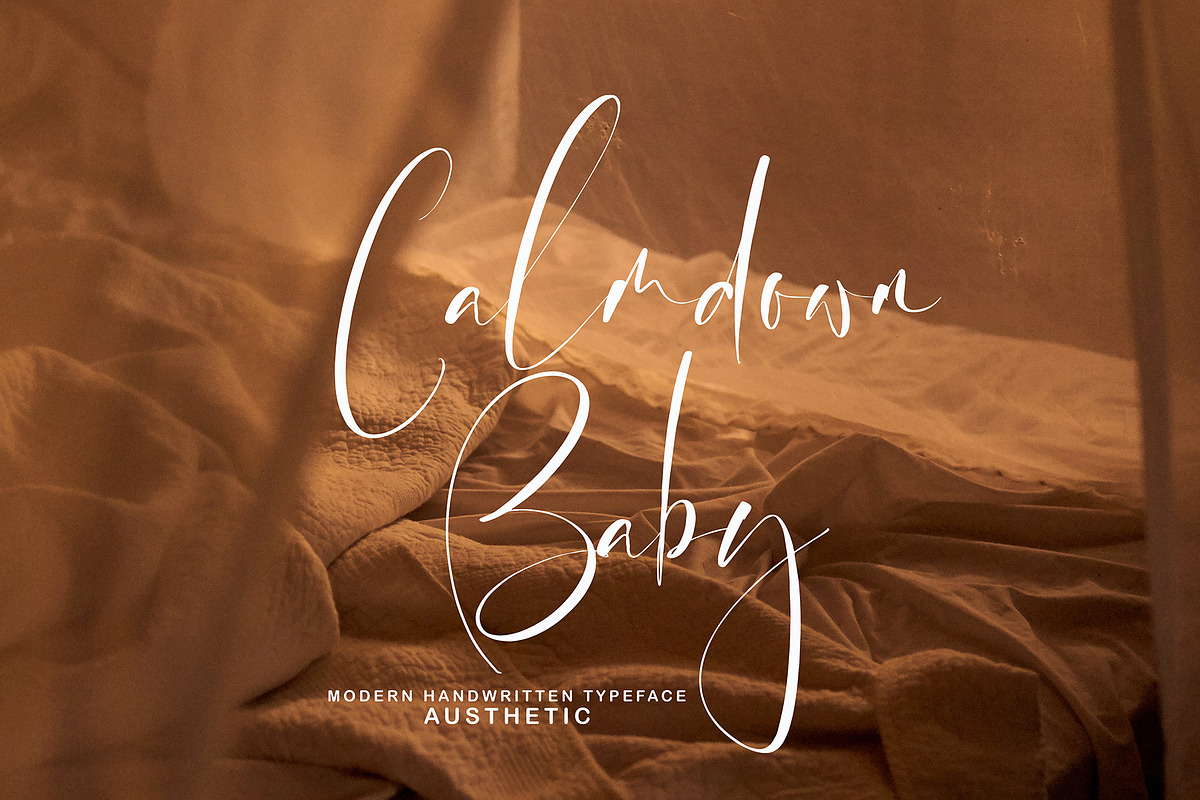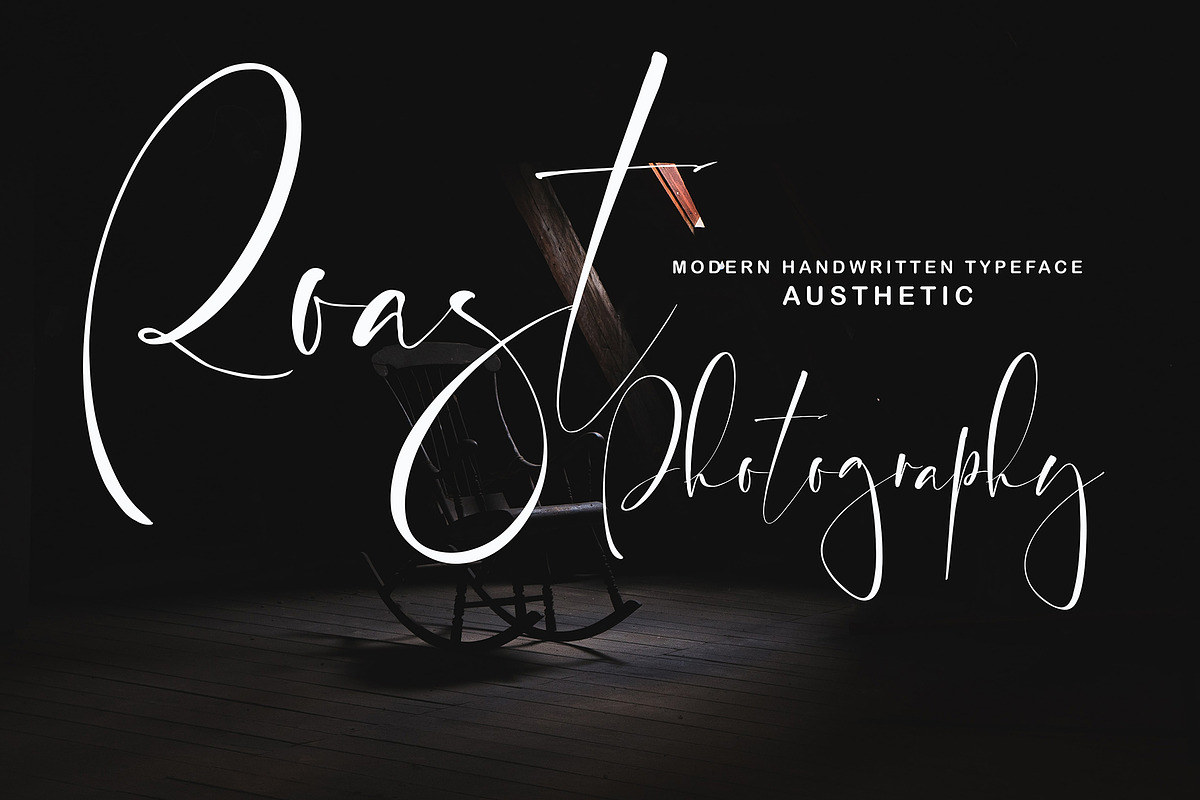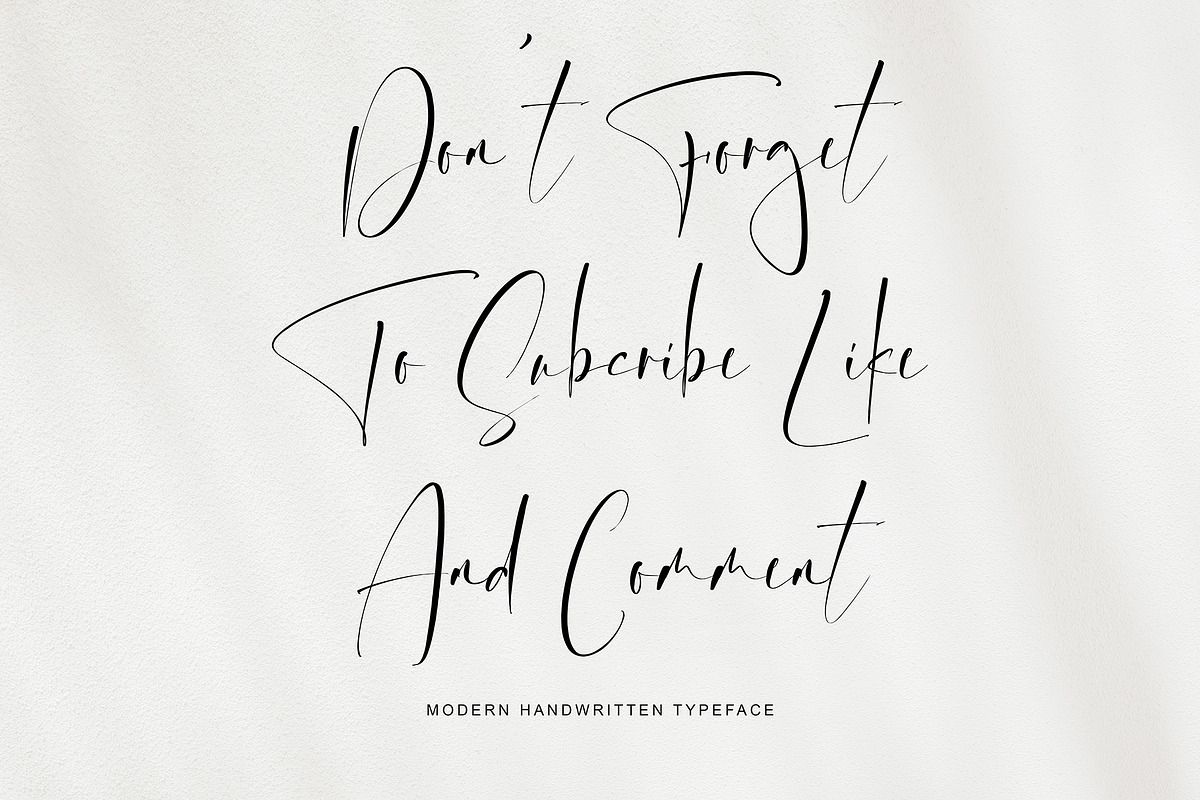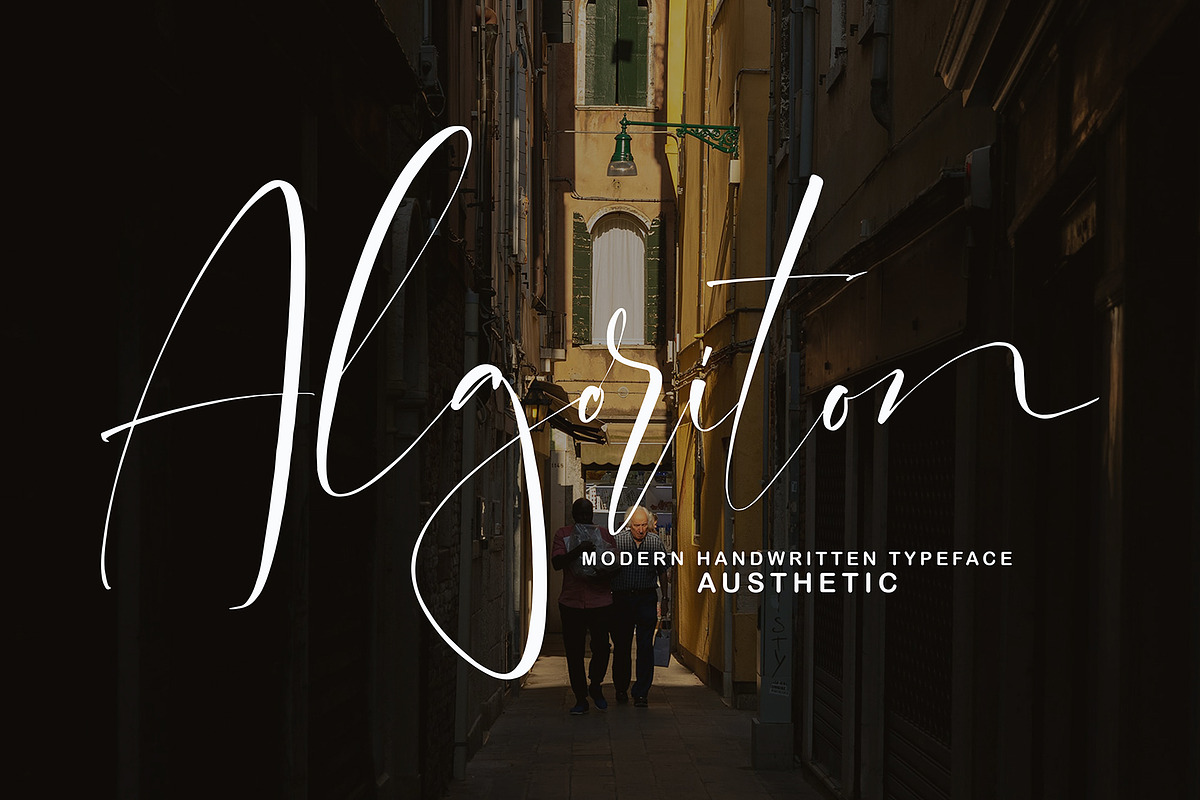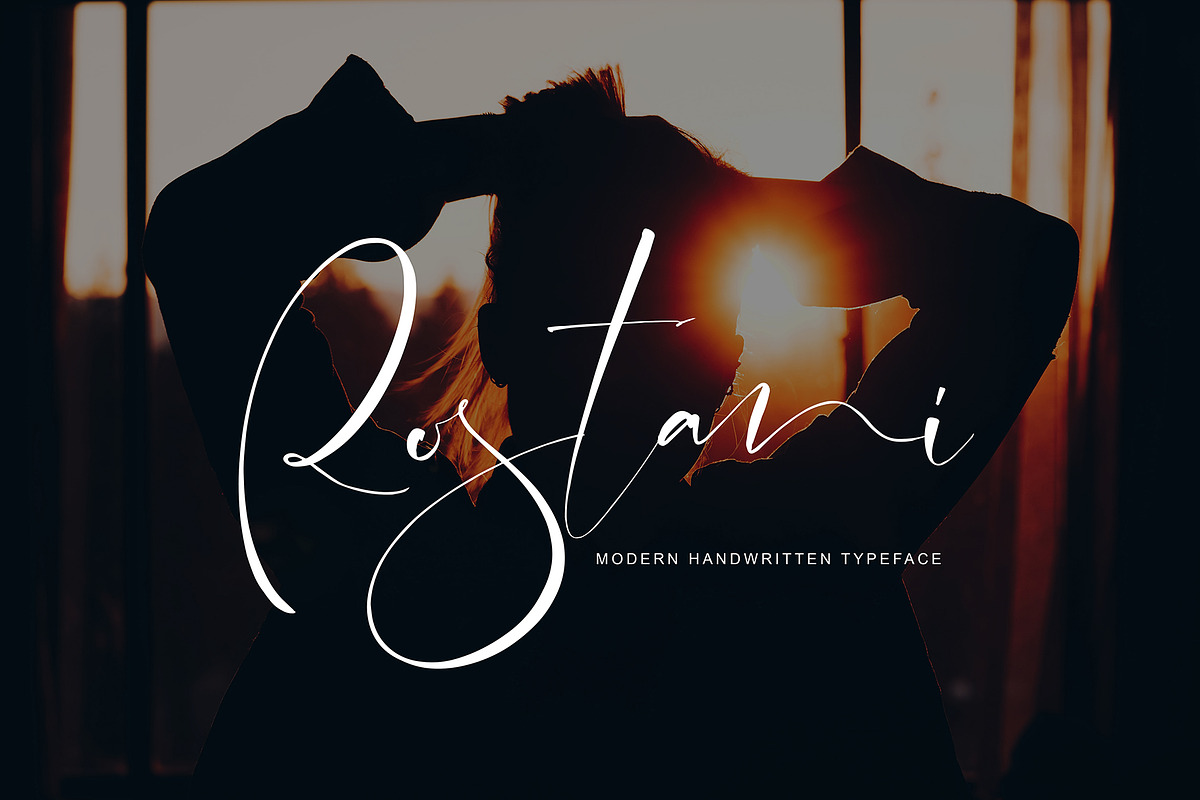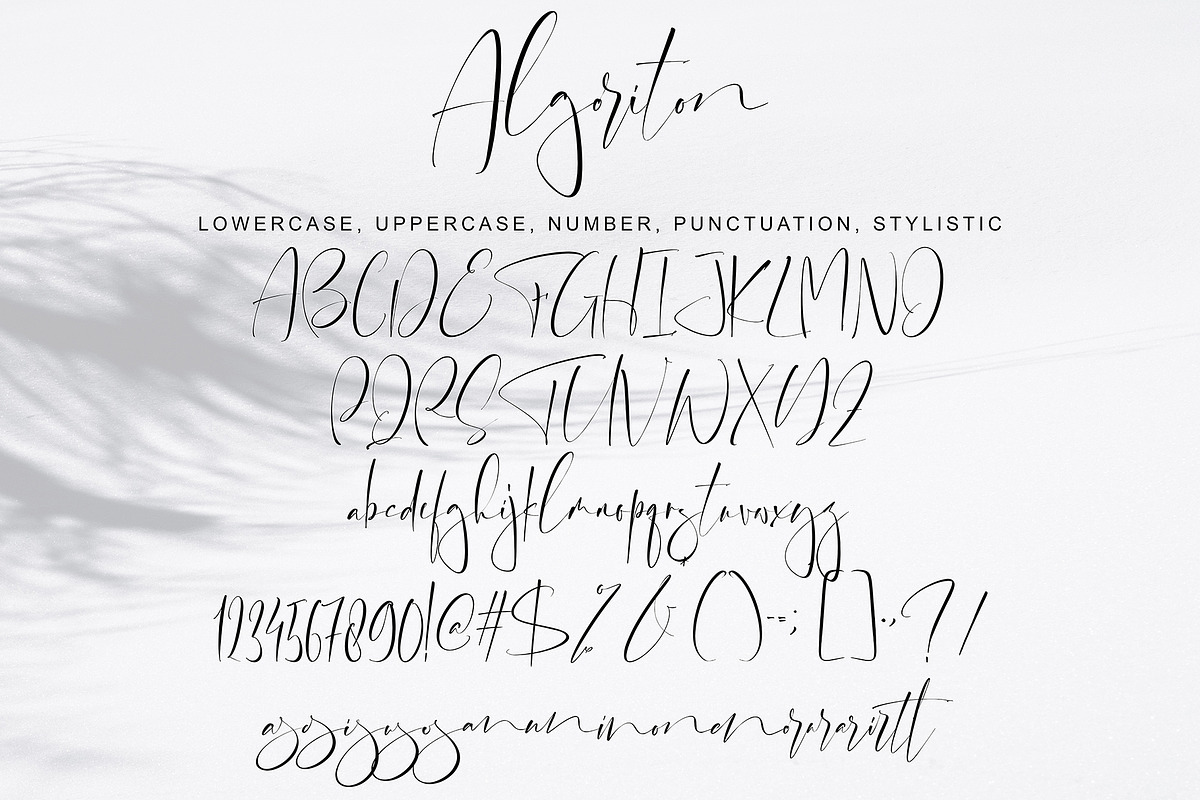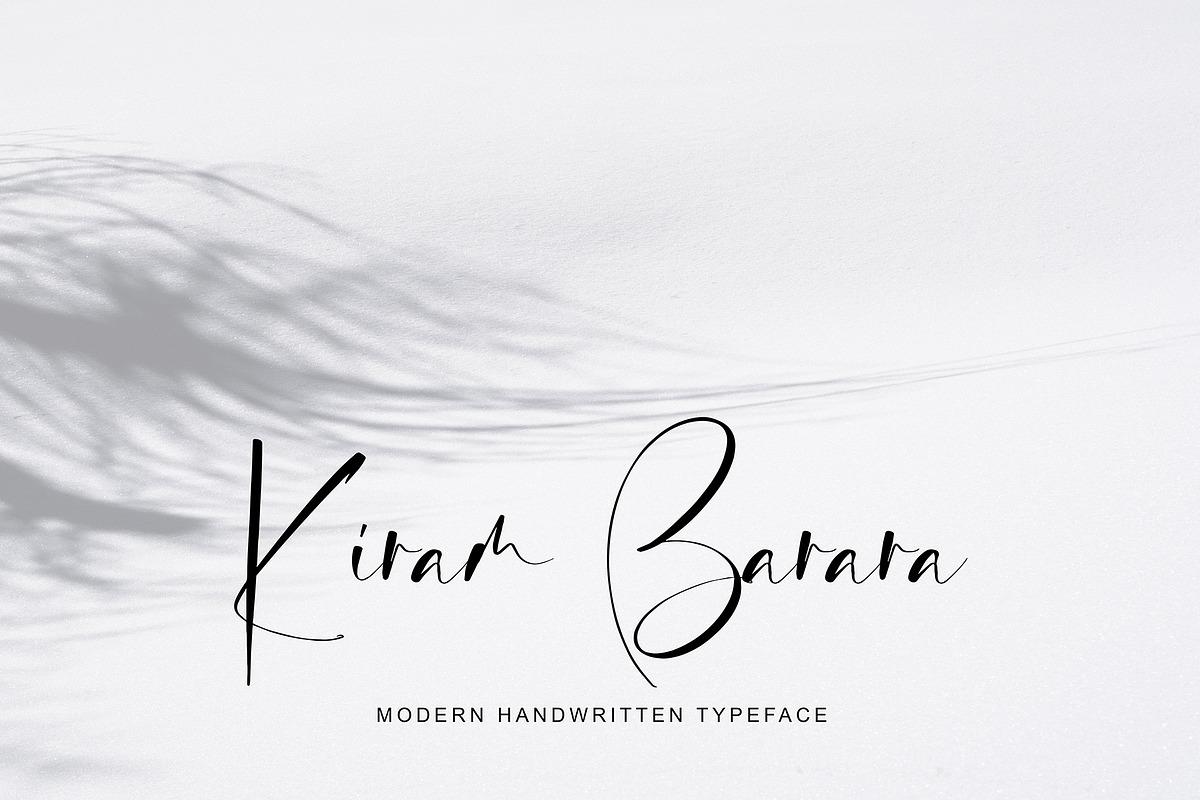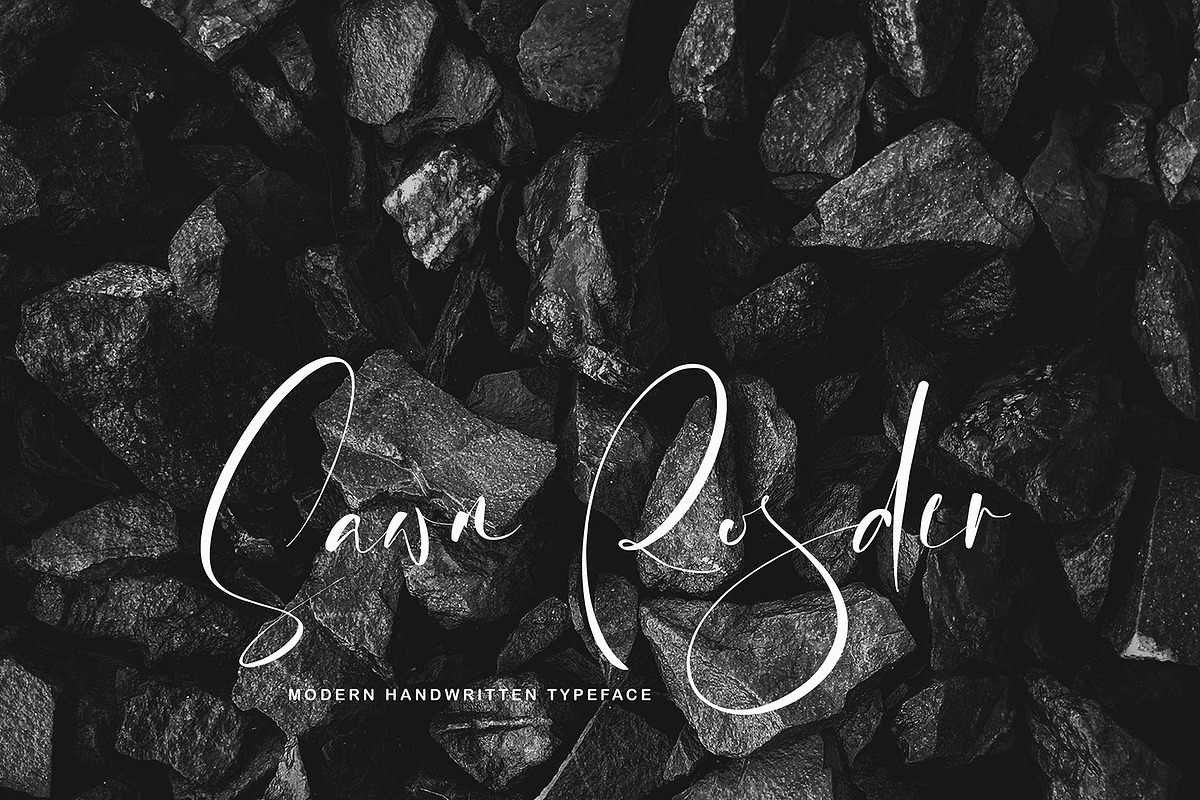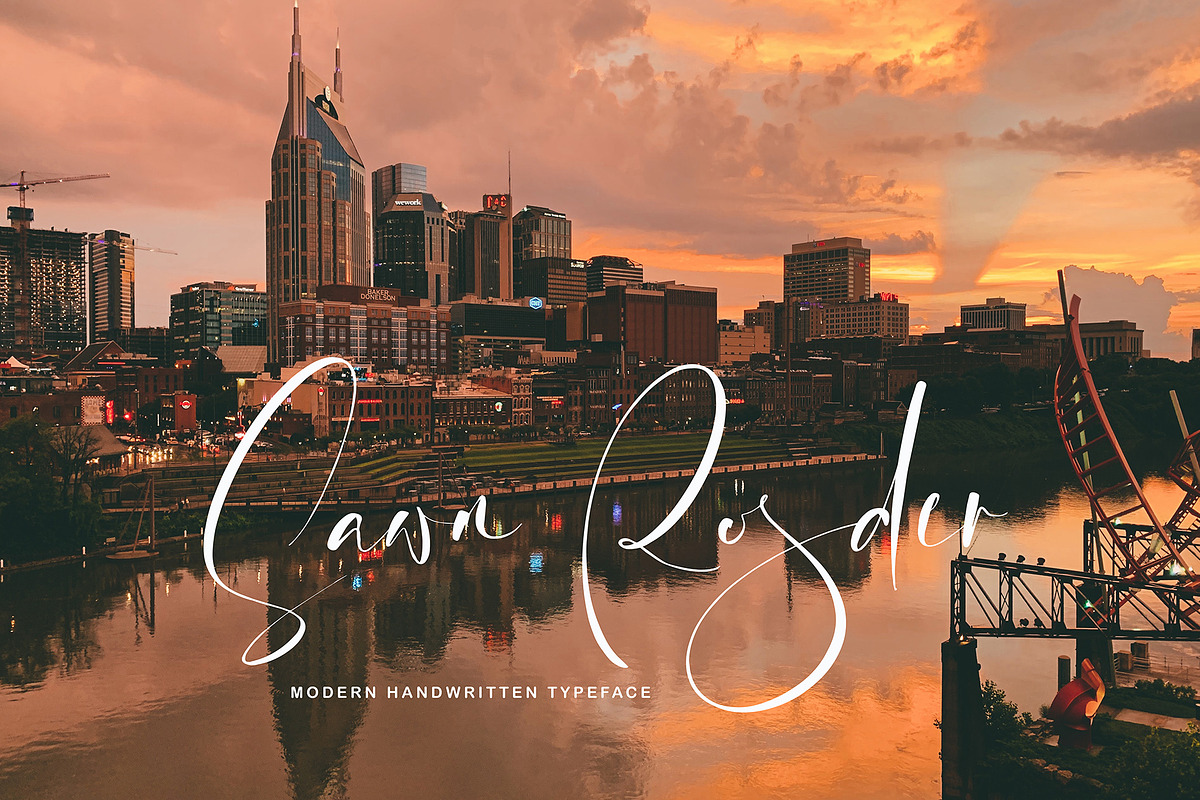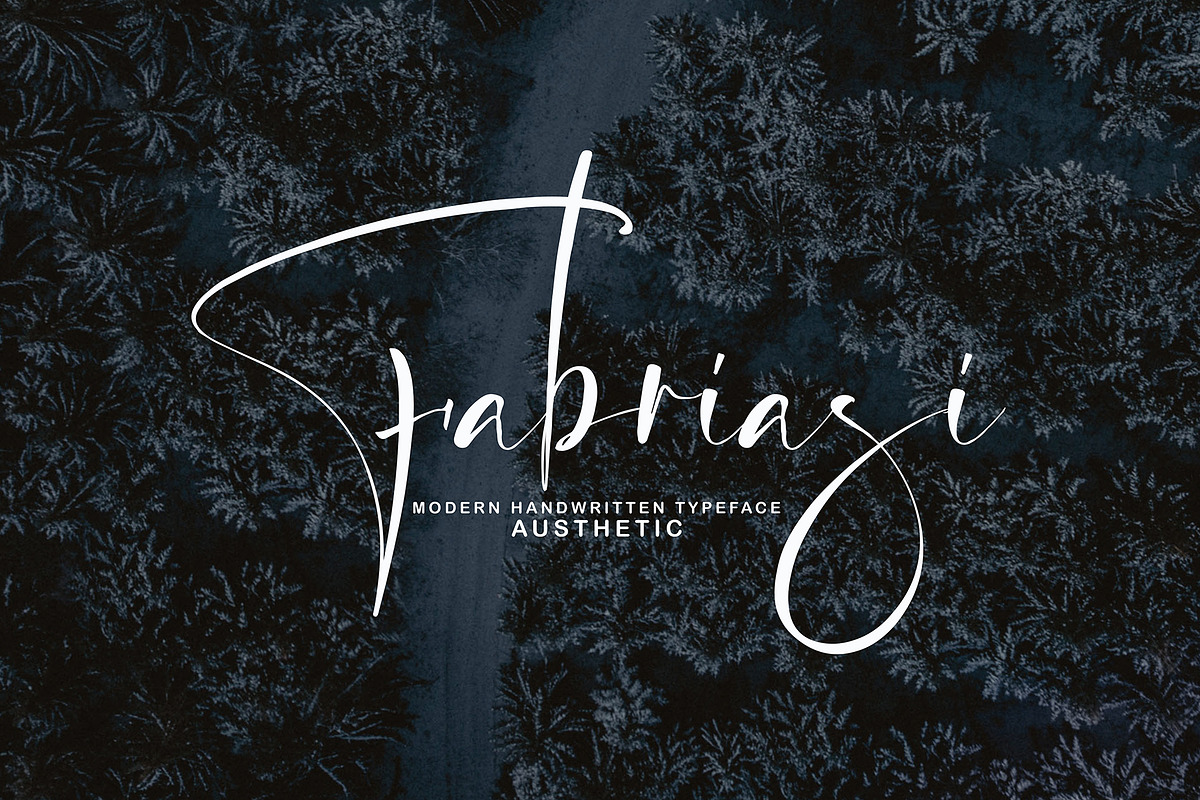
Algoriton
Algoriton font with new style, this font will perfect for many different project ex: quotes, logo, blog header, poster, banding, letter, invitation, stationery, etc...